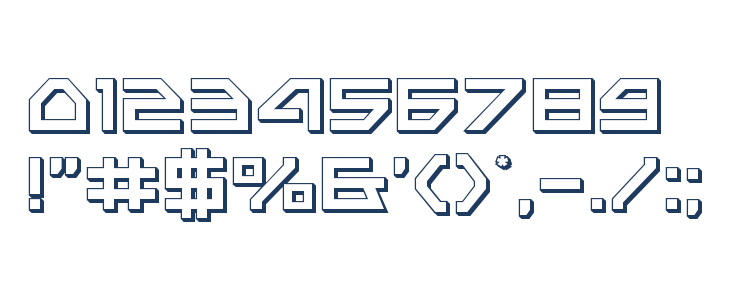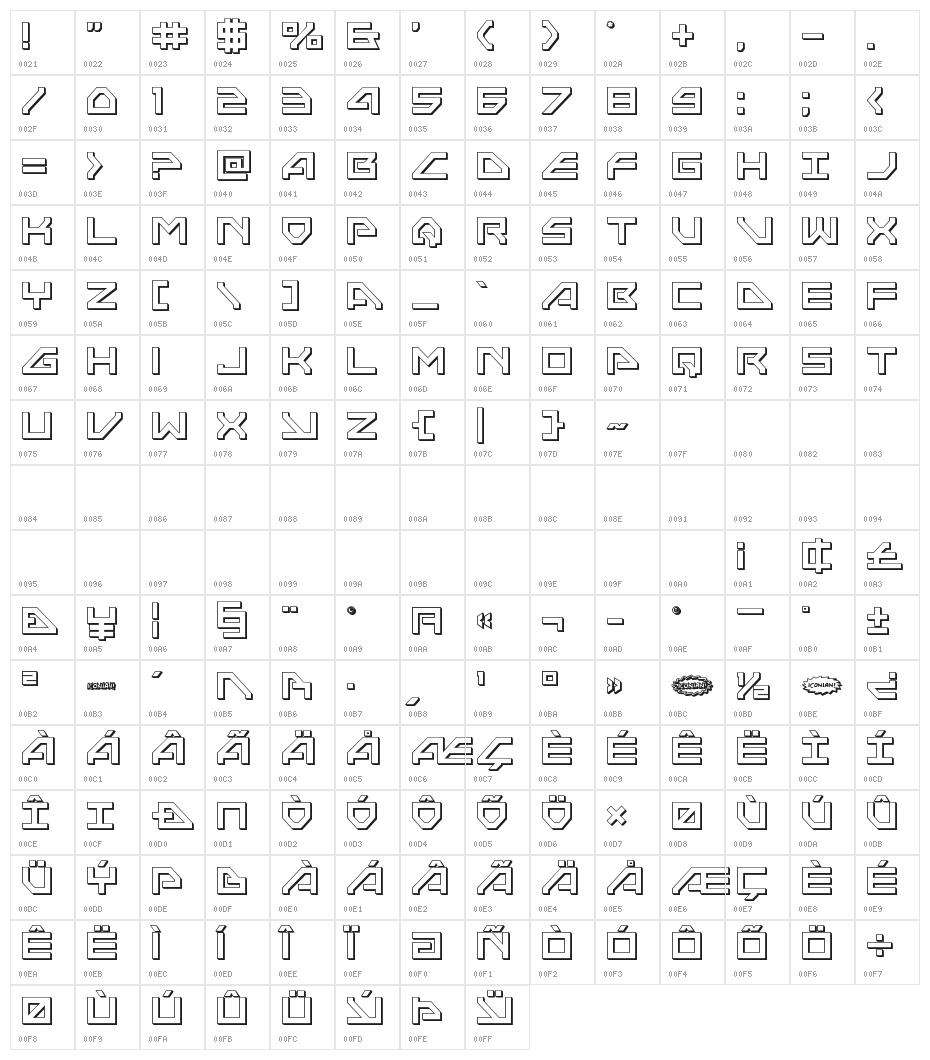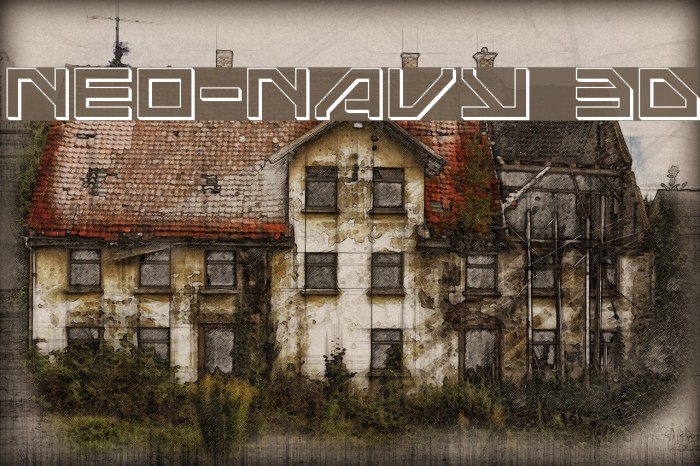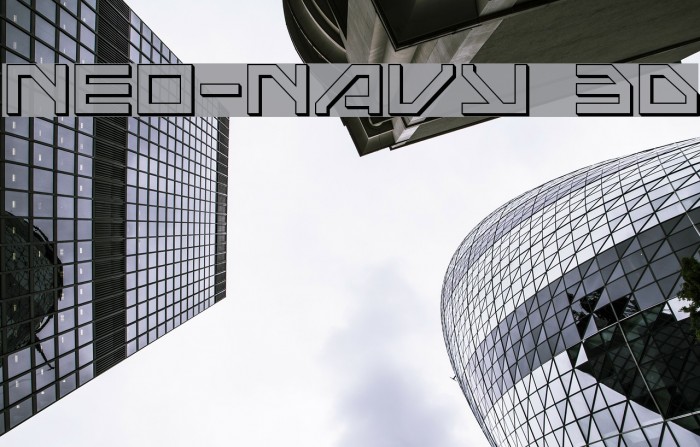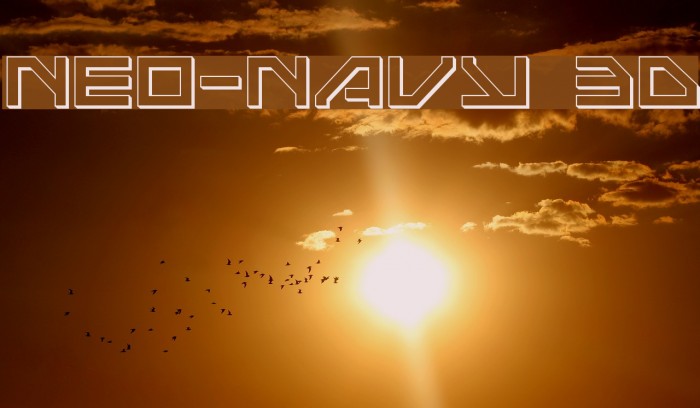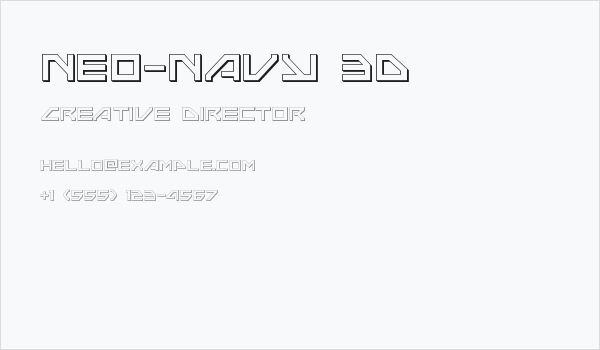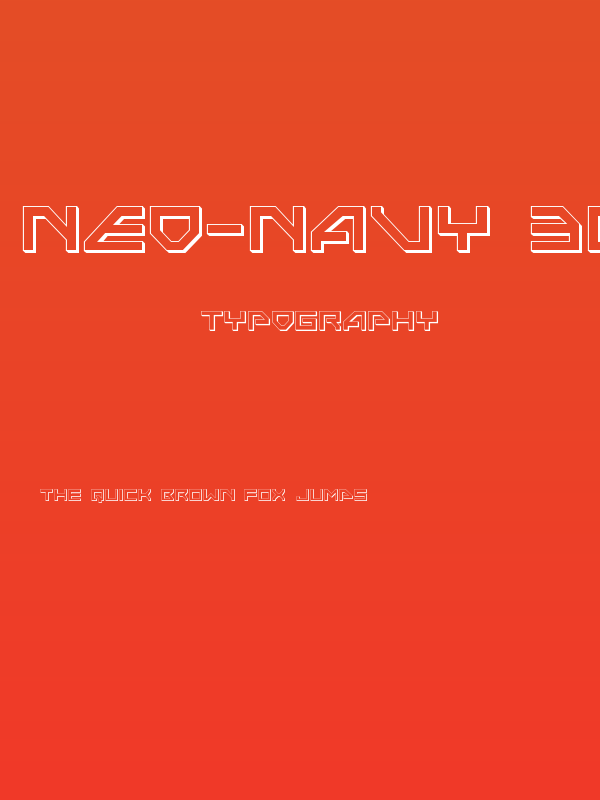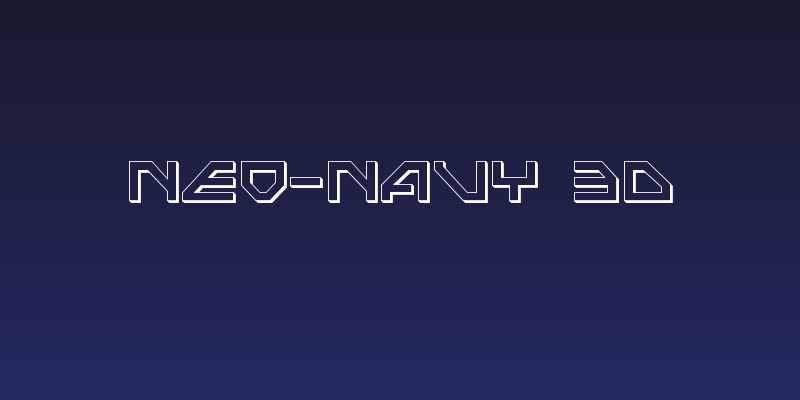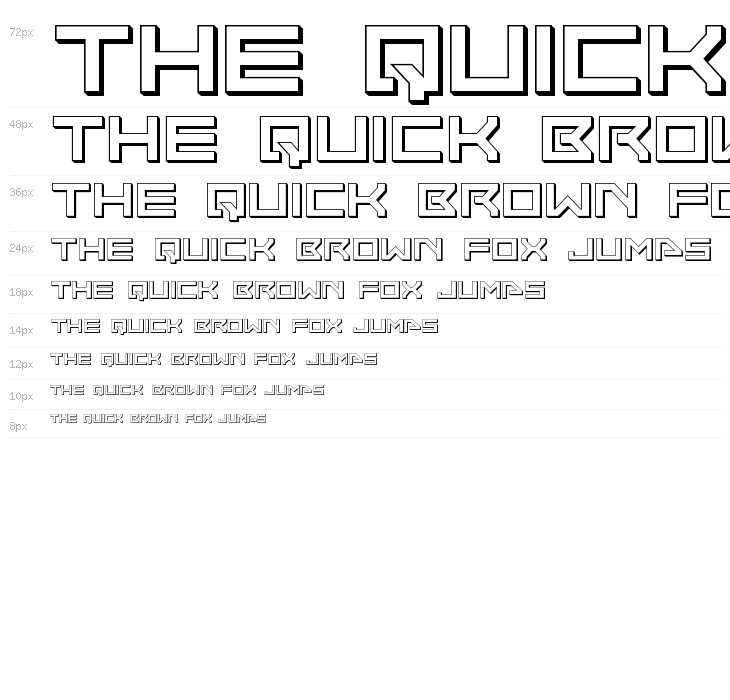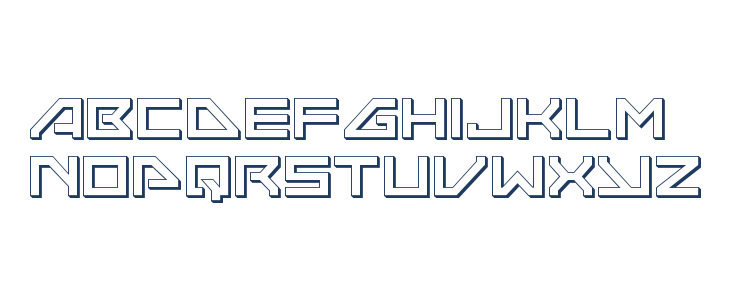
Neo-Navy 3D Font
Neo-Navy 3D Description
This font features a bold, futuristic design with a 3D effect that gives it a striking and modern appearance. The characters are outlined with a double line, creating a sense of depth and dimension. The geometric shapes and angular lines contribute to its tech-inspired aesthetic, making it ideal for projects that require a contemporary and edgy look. The uppercase and lowercase letters maintain a consistent style, with sharp edges and unique angles that add to its distinctive character. The numerals and special characters are designed to match the overall theme, ensuring a cohesive visual experience.
Proposed ProjectsIdeal for tech-related branding, video game titles, sci-fi movie posters, and modern digital interfaces.